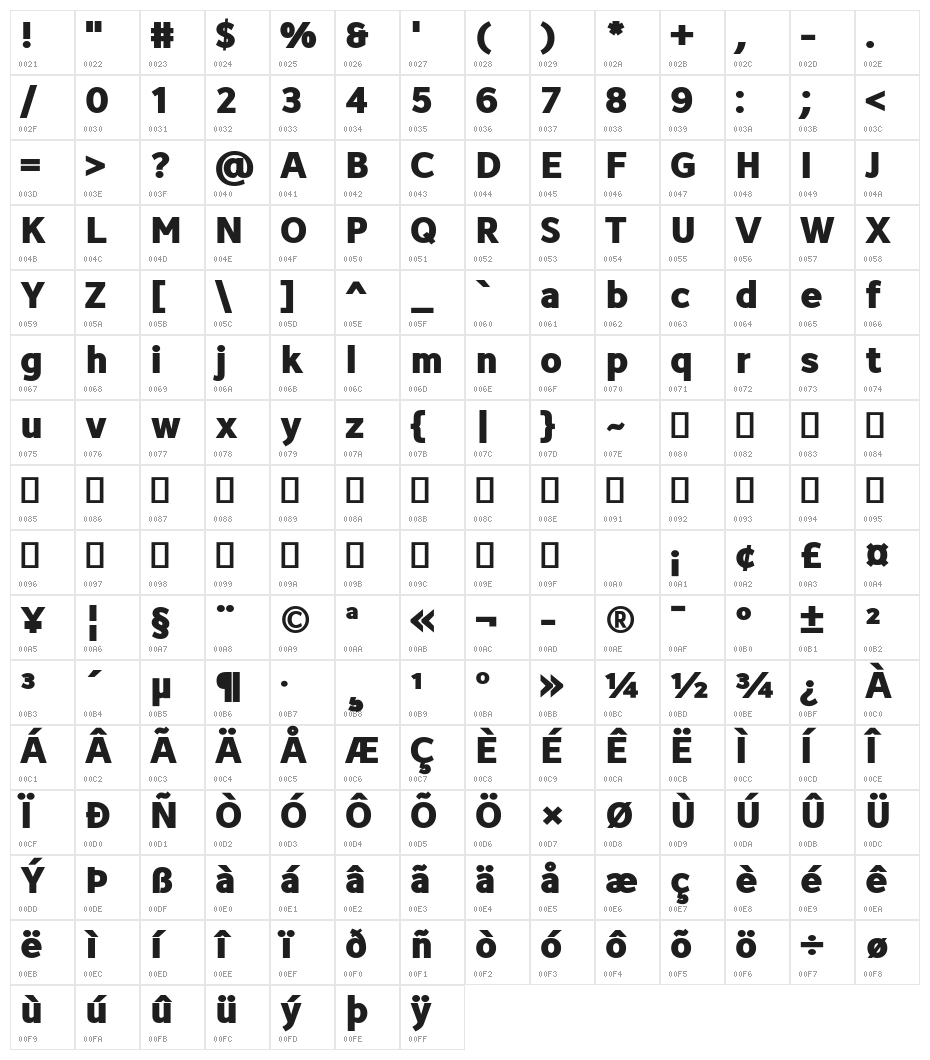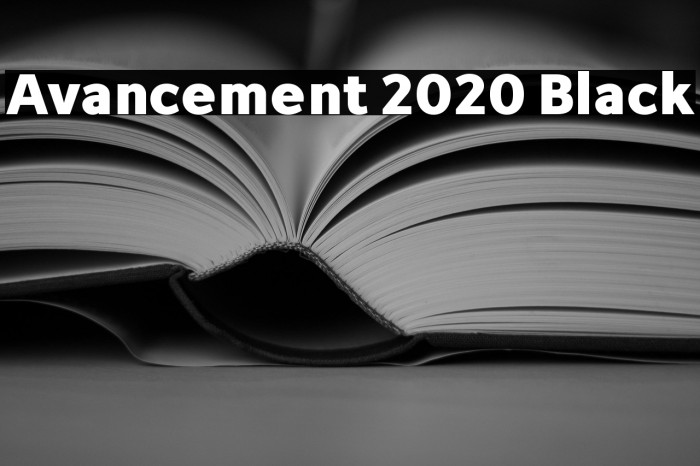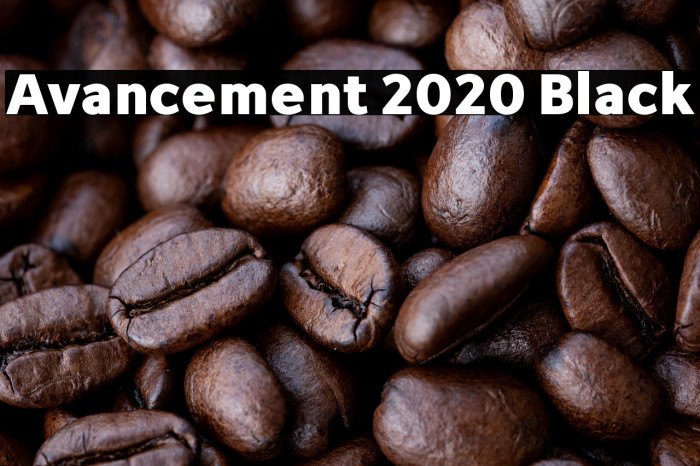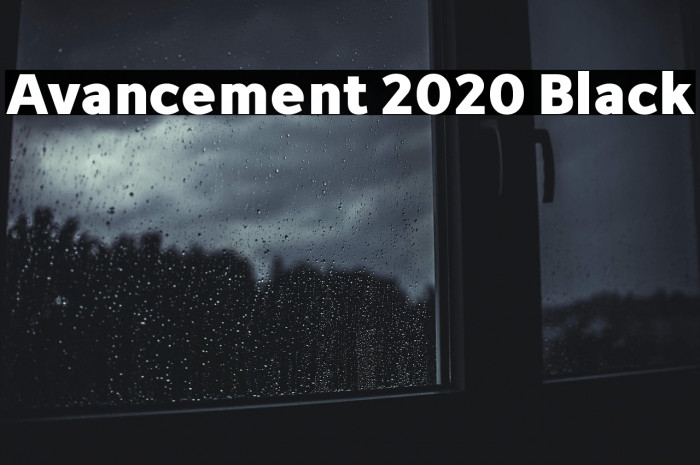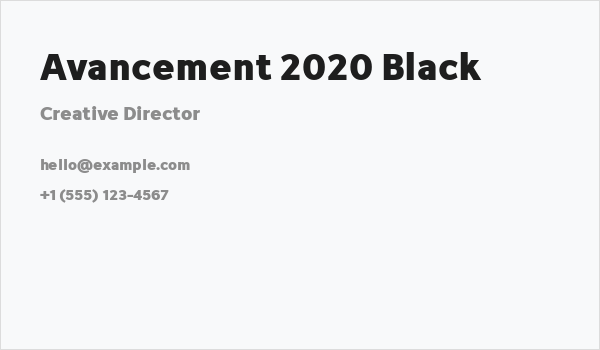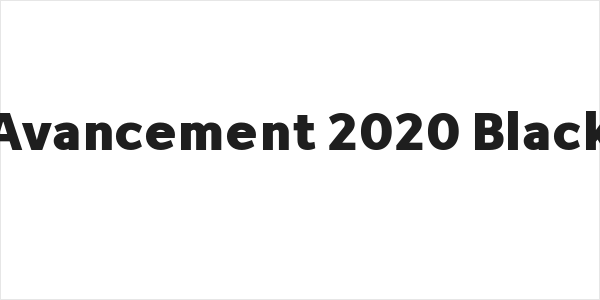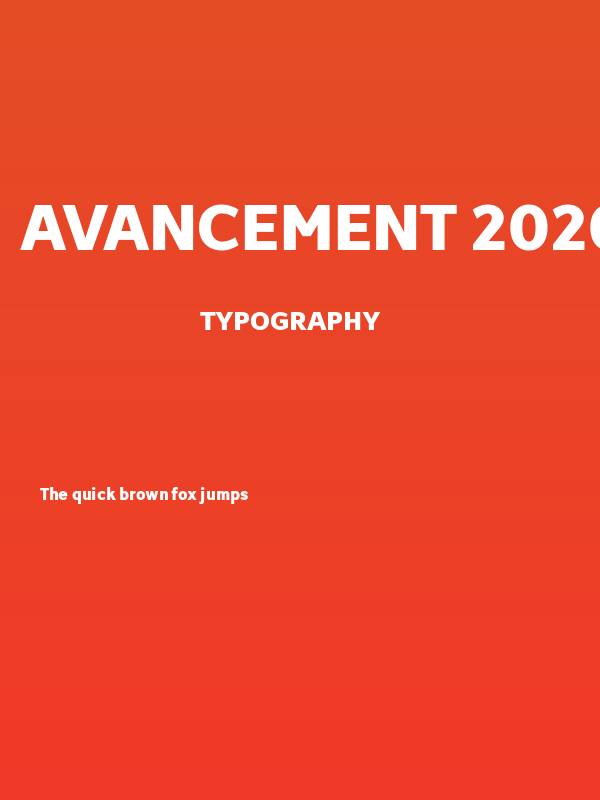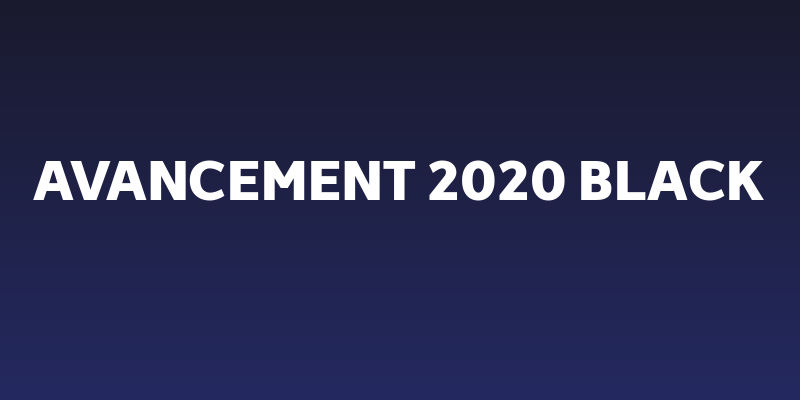
Avancement 2020 Black Font
Avancement 2020 Black Description
This font exhibits a bold and robust style, characterized by thick strokes and a strong presence. The uppercase and lowercase letters maintain a consistent weight, providing a uniform appearance across all characters. The numerals are equally bold, ensuring readability and impact. The special characters are designed with the same thickness, making them stand out prominently. The overall design is modern and assertive, suitable for making statements in various design contexts.
| Proposed Projects | Ideal for headlines, posters, branding, and any project requiring a bold statement. |